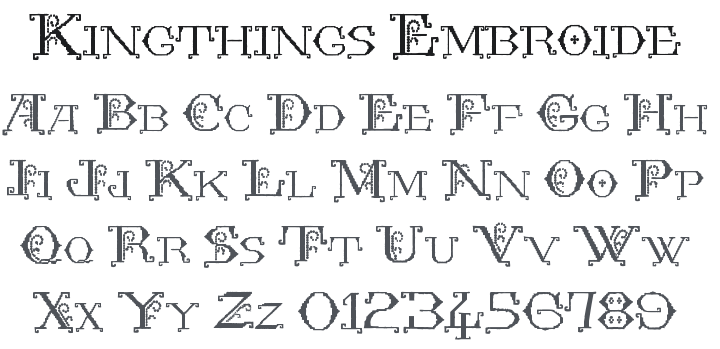
Kingthings Embroidery Font
About Kingthings Embroidery
I made this font after finding an old embroidery transfer book where I work - at Oxfam in Exeter - my fonts are often sparked from finding something that has been 'thrown out' - there is often charm that has been, gone, and come back again - this font has a lovely feeling of the initialled handkerchiefs that my dad had kept since the thirties and forties.